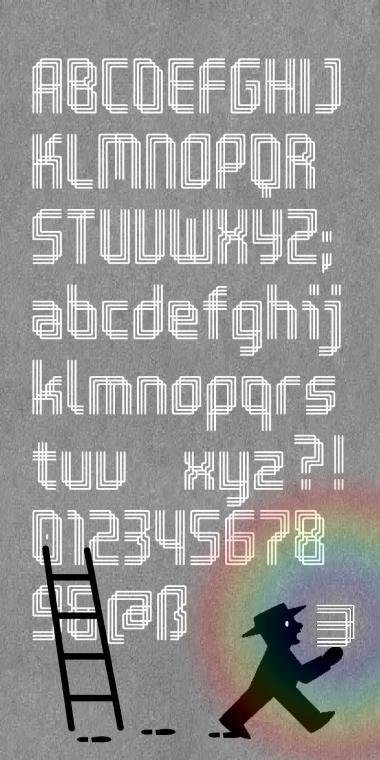
zreeways eYe/FS
by elmoyenique
What's with the w? xD+10/10+fave
Inline x 3 works so well.
I love your sample. Great work.
Great sample, great font! I love how the corners give the effect of folded paper.
very cool
Cool!
original
I'm with all the fontstructors: this is a very cool font.